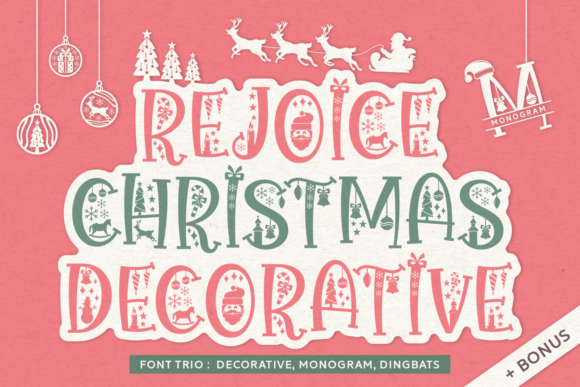
Introducing Rejoice Christmas Font, the ultimate choice for capturing the festive spirit and adding a touch of magic to your winter designs. Crafted with meticulous attention to detail, this decorative font is a must-have for anyone looking to elevate their creations and leave a lasting impression.
Embrace the enchanting vibe of the holiday season with Rejoice Christmas Font. Its intricate and highly detailed design will instantly captivate your audience, transporting them to a world filled with wonder and joy. Each letter is carefully crafted to evoke a sense of warmth and nostalgia, making it the perfect choice for movie titles, posters, and holiday-themed projects.
Unleash your creativity and watch your designs come to life as you incorporate Rejoice Christmas Font. Whether you're designing a greeting card, creating a festive logo, or designing a seasonal advertisement, this font will effortlessly elevate your work and make it stand out from the crowd.
With Rejoice Christmas Font, the possibilities are endless. Its versatility allows you to experiment with different styles and layouts, ensuring that each design is unique and visually striking. Let your imagination run wild as you play with the various ligatures, ornaments, and alternates that this font offers, giving your projects that extra touch of elegance and charm.
Created by the talented Situjuh, Rejoice Christmas Font embodies the true spirit of the holiday season. It goes beyond being just a font; it's a heartfelt invitation to celebrate, reminisce, and spread joy. Every curve and embellishment tells a story, making it an essential tool for anyone looking to create memorable and captivating designs.